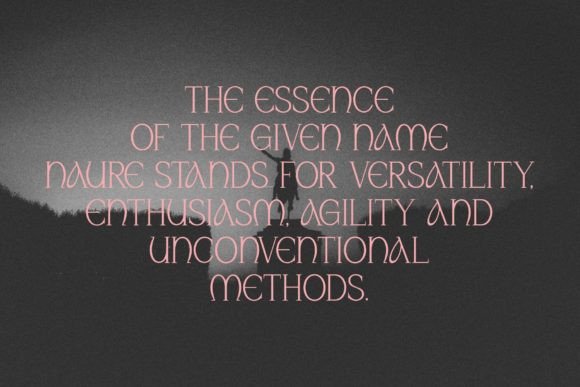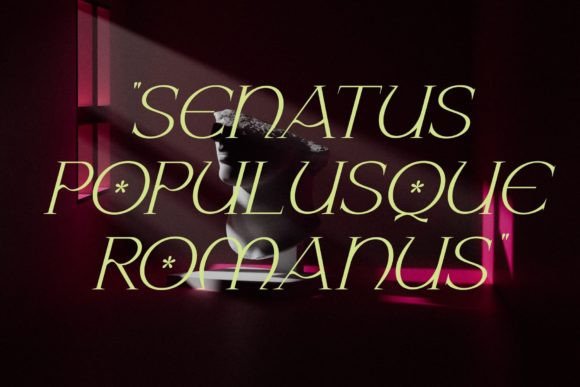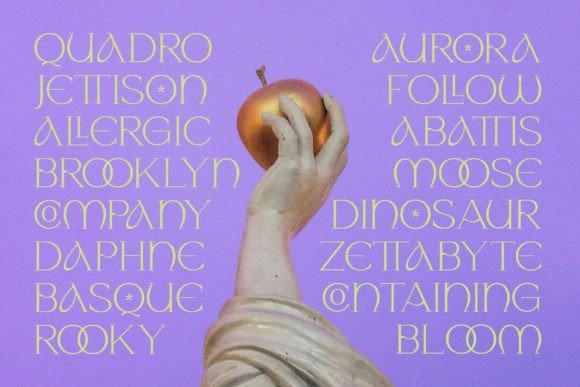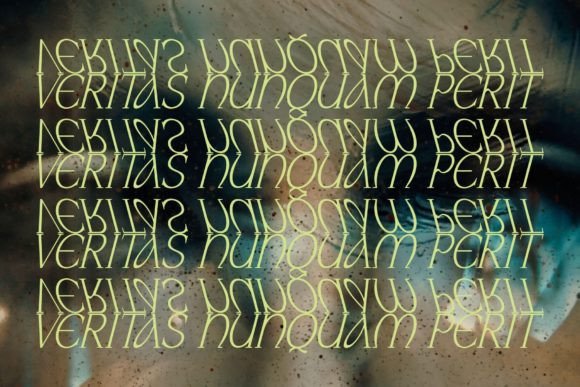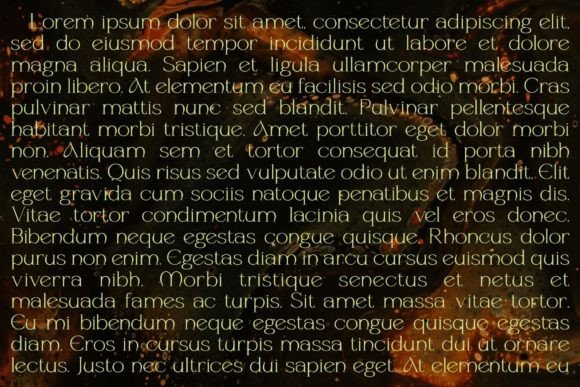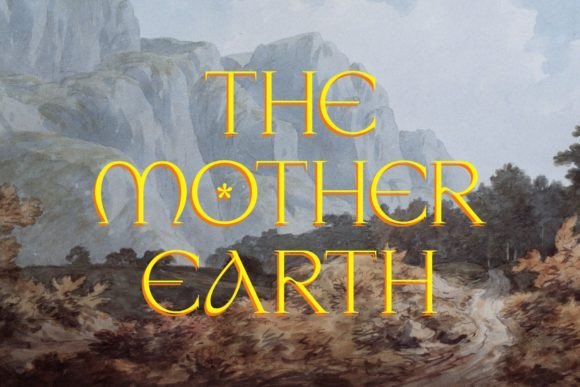
Introduction to Naure Font
Have you ever been stuck on a creative project, struggling to find the perfect font to capture the essence of your idea? That’s where the Naure Font comes in – a stunning vintage serif typeface that adds a touch of elegance to any design. Its unique curve and subtle roman soul make it an instant attention-grabber, perfect for those high-stakes creative projects.
As a valuable resource for designers, the Naure Font is available for free download, offering a high-quality design solution that’s both versatile and visually striking. Whether you’re working on a social media display, an editorial piece, or a book cover, this font is sure to make a lasting impression. With its transparent background and sleek design, it’s a must-have for any serious designer looking to elevate their creative game.
- High-quality design resource for creative projects, offering a unique and elegant look.
- Perfect for designers looking for a free design resource to enhance their creative project, ideal for logos, headings, and body text.
- Naure Font is a versatile and stylish choice for designers, suitable for a wide range of creative projects and design applications.
Honest Review: Naure Font
I recently came across the Naure Font, a free design resource that I was eager to explore. As a designer, I’m always on the lookout for high-quality fonts that can elevate my creative projects.
The Naure Font did not disappoint. With its sleek and modern design, it’s perfect for a variety of applications, from digital interfaces to print materials. I love the fact that it’s available for free download, making it a fantastic addition to any designer’s toolkit.
- ✨ High-quality design that’s perfect for modern projects
- ✨ Transparent background, making it easy to use with any design
- ⚠️ Limited character set, which may not be ideal for extended text
- ⚠️ Not suitable for use in small font sizes, where clarity may be compromised
Overall, I’m impressed with the Naure Font. While it may not be perfect, it’s a great resource for designers looking for a high-quality, modern font. With a little creativity, it can be a valuable addition to any design project.
Naure Font is a versatile and high-quality design resource ideal for any creative project. Its unique style and transparent background make it a perfect addition to any design.
Tips for Getting the Most Out of Naure Font
To get the most out of Naure Font, use it in combination with other design elements, such as images and graphics, to create a visually appealing design. Experiment with different font sizes, colors, and styles to find the perfect balance for your project.
Naure Font is commonly used in:
- Website headers and footers